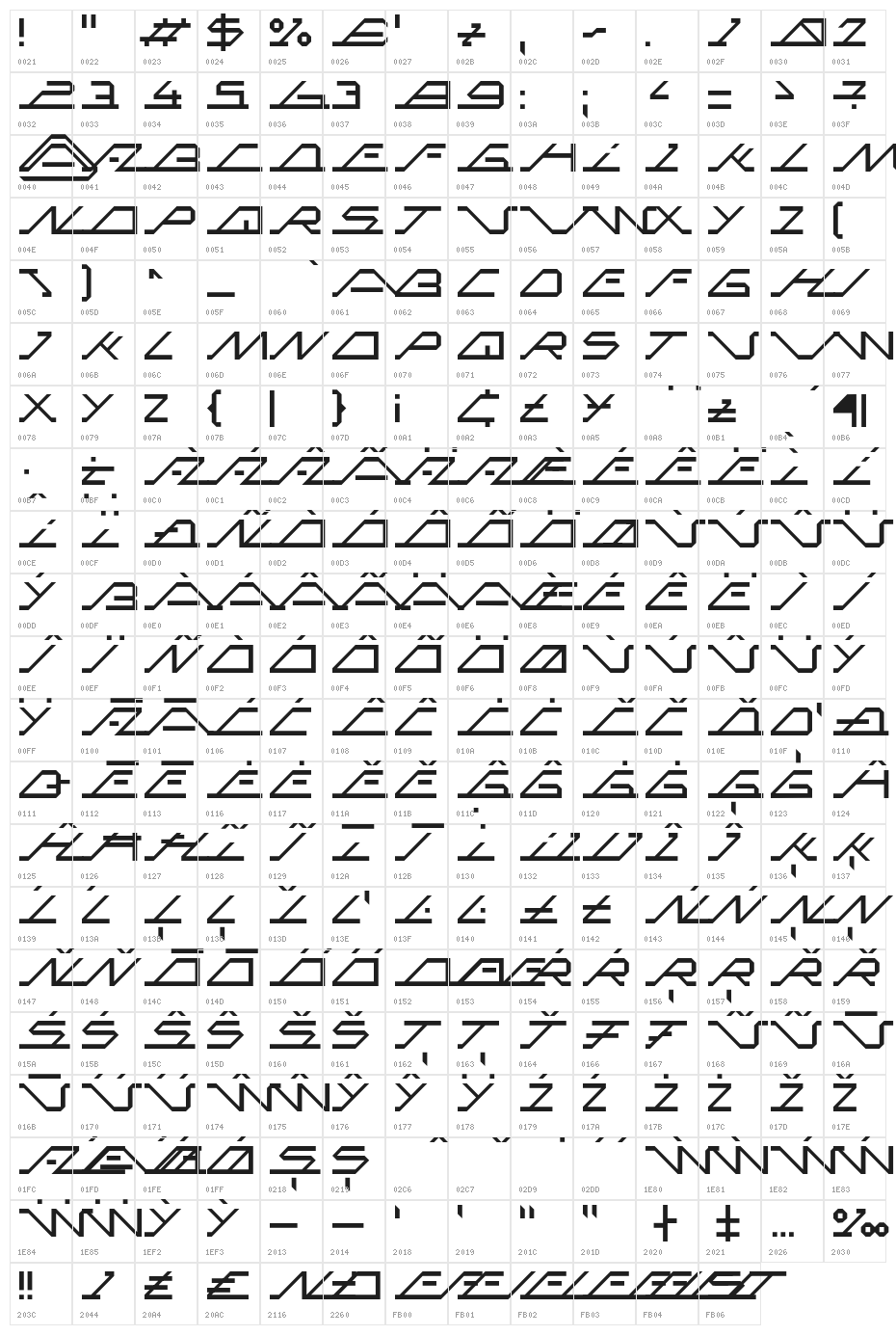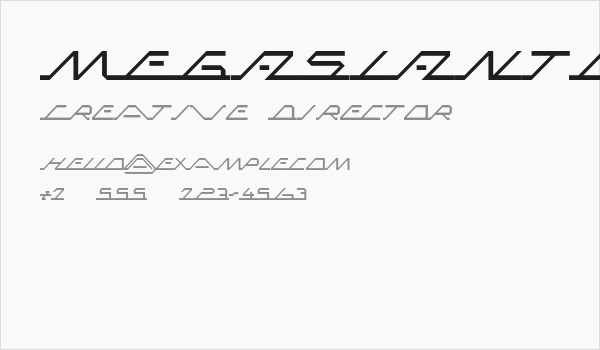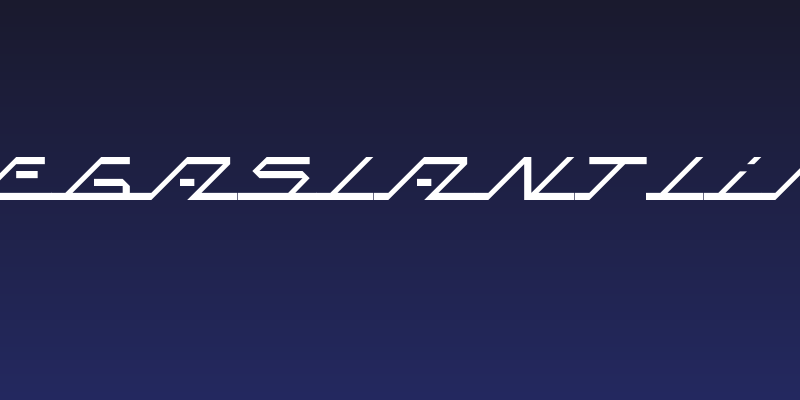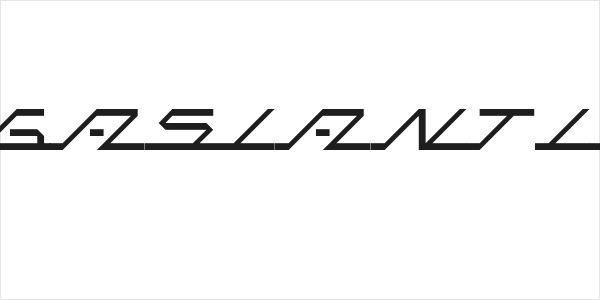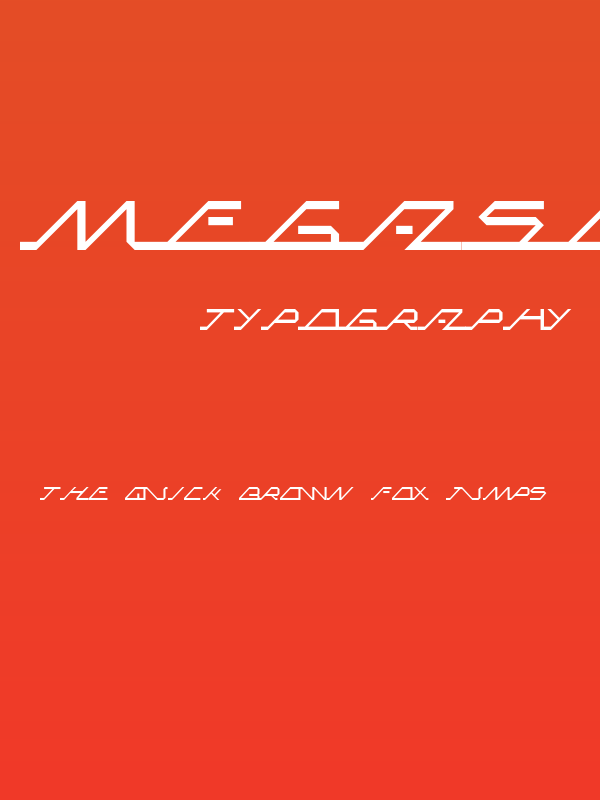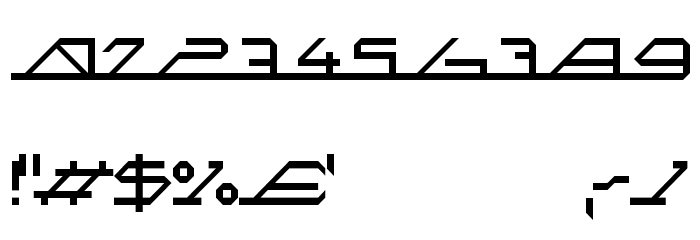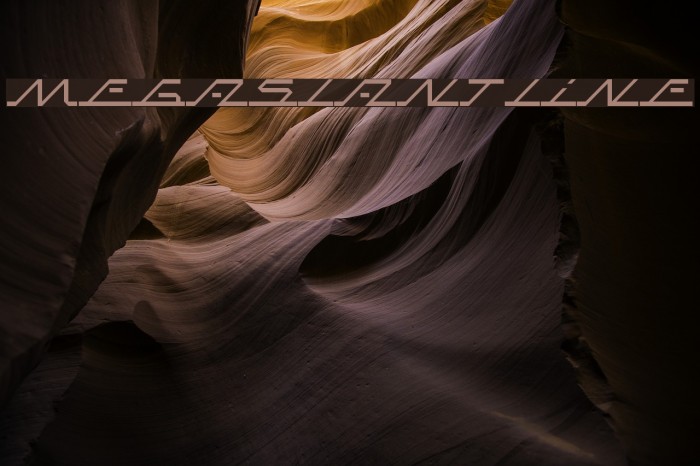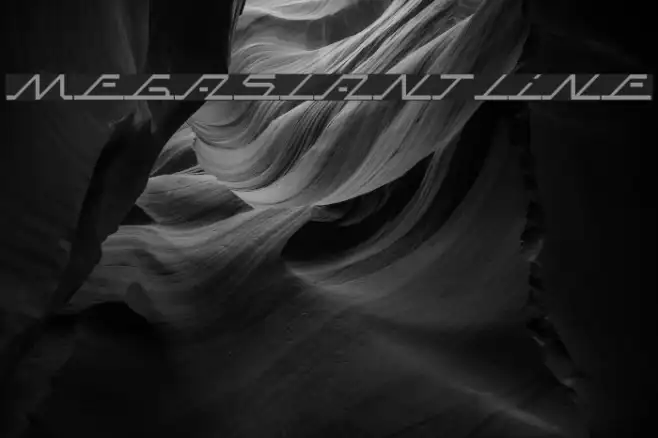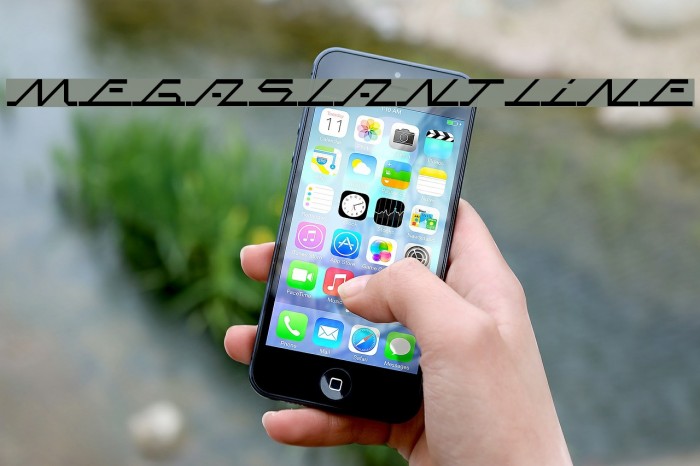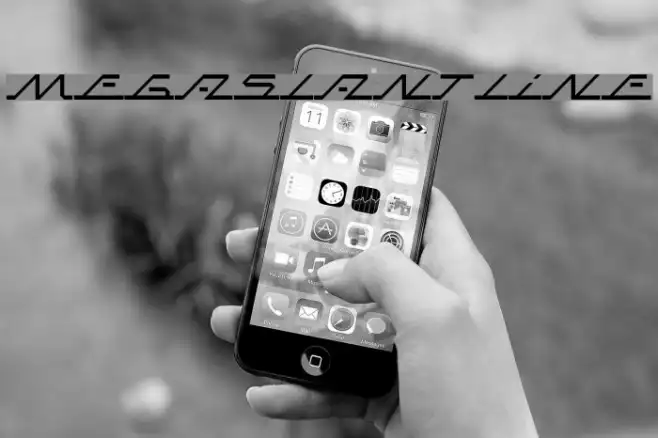
MEGASLANTLINE Font
MEGASLANTLINE Description
This font features a futuristic and angular design with a distinct slant, giving it a dynamic and forward-moving appearance. The characters are constructed with sharp, geometric lines and edges, creating a sense of speed and modernity. The uppercase and lowercase letters are consistent in style, maintaining the angular theme throughout. Numbers and special characters are designed to match the overall aesthetic, ensuring a cohesive look. The font's unique style makes it stand out, suitable for projects that require a modern and edgy feel.
| Proposed Projects | Ideal for sci-fi themed projects, technology branding, video game titles, and modern posters. |